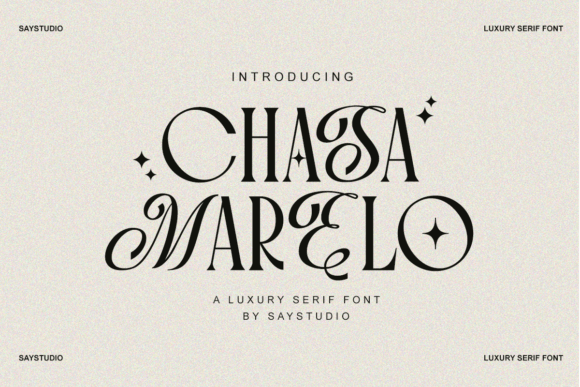
The Perfect Font for Your Luxury Brand
Have you ever stared at a beautifully designed logo or business card and wondered what made it so stunning? For designers, the perfect font can make all the difference between a bland and a breathtaking design. As we search for that elusive font that exudes luxury and sophistication, we often find ourselves drawn to the elegant and stylish serif fonts.
Enter the Chasa Marelo Font, a luxury branding company that specializes in crafting exquisite serif fonts that give brands a classic and refined look. With a focus on attention to detail and a commitment to quality, Chasa Marelo Font helps businesses stand out in a crowded market and convey a sense of luxury and refinement. For designers, this font is a valuable resource that can elevate any design project and leave a lasting impression.
Chasa Marelo Font Key Features
- Character Set: Supports Latin, Cyrillic, and Greek alphabets, with over 1000 glyphs
- Unique Characteristics: Features a unique blend of modern and traditional elements, with intricate details and ornate flourishes
- Font Styles: Includes regular, bold, italic, and bold-italic styles for versatility and flexibility
Chasa Marelo Font Review
Overall, I think Chasa Marelo Font has a unique and stylish appearance. The combination of modern and vintage elements ✨ makes it suitable for various design projects. Here are some of its strengths:
- Unique blend of modern and vintage styles ✨
- High-quality font with clear and crisp lines
- Suitable for various design projects, including logos, headlines, and body text
However, there are some limitations to consider ⚠️:
- Limited language support, which may make it less suitable for international projects
- No bold or italic versions available for certain font weights
- May not be suitable for small text sizes due to the intricate details
Overall, Chasa Marelo Font is a stylish and unique font that can add a touch of sophistication to your designs. While it has some limitations, it’s a great choice for designers who want to stand out from the crowd. Just be sure to consider the potential limitations before making a final decision.
Chasa Marelo Font Practical Application Guide
Chasa Marelo Font is ideal for:
- Designing creative and unique typography for branding and marketing materials.
- Adding a personal touch to invitations, menus, and other print materials.
- Creating a distinctive and memorable visual identity for your business or personal projects.
Tips for Getting the Most Out of Chasa Marelo Font
For best results, use Chasa Marelo Font in conjunction with bold and colorful graphics to create a striking visual impact.
Experiment with different font sizes, colors, and combinations to find the
Alternative Fonts to Chasa Marelo Font
Oswald is a sans-serif font known for its geometric and clean design. It’s ideal for use in headings and titles where you want to convey a sense of modernity and sophistication. Oswald is similar to Chasa Marelo Font in its modern feel, but it’s more geometric and lacks the rounded edges.
Montserrat is a sans-serif font designed for digital use. It’s highly legible and works well in a variety of contexts, from body text to headings. Montserrat is similar to Chasa Marelo Font in its clean and modern aesthetic, but it’s more versatile and works well in a wider range of applications.
Merriweather is a classic serif font that’s perfect for use in body text where you want to convey a sense of elegance and sophistication. It’s a good choice for long-form content and works well in print and digital applications. Merriweather is different from Chasa Marelo Font in its serif design and more traditional feel.
Inter is a sans-serif font designed for digital use. It’s highly legible and works well in a variety of contexts, from body text to headings. Inter is similar to Chasa Marelo Font in its modern feel, but it’s more minimalist and lacks the rounded edges. It’s a good choice for use in digital applications where you want a clean and modern aesthetic.